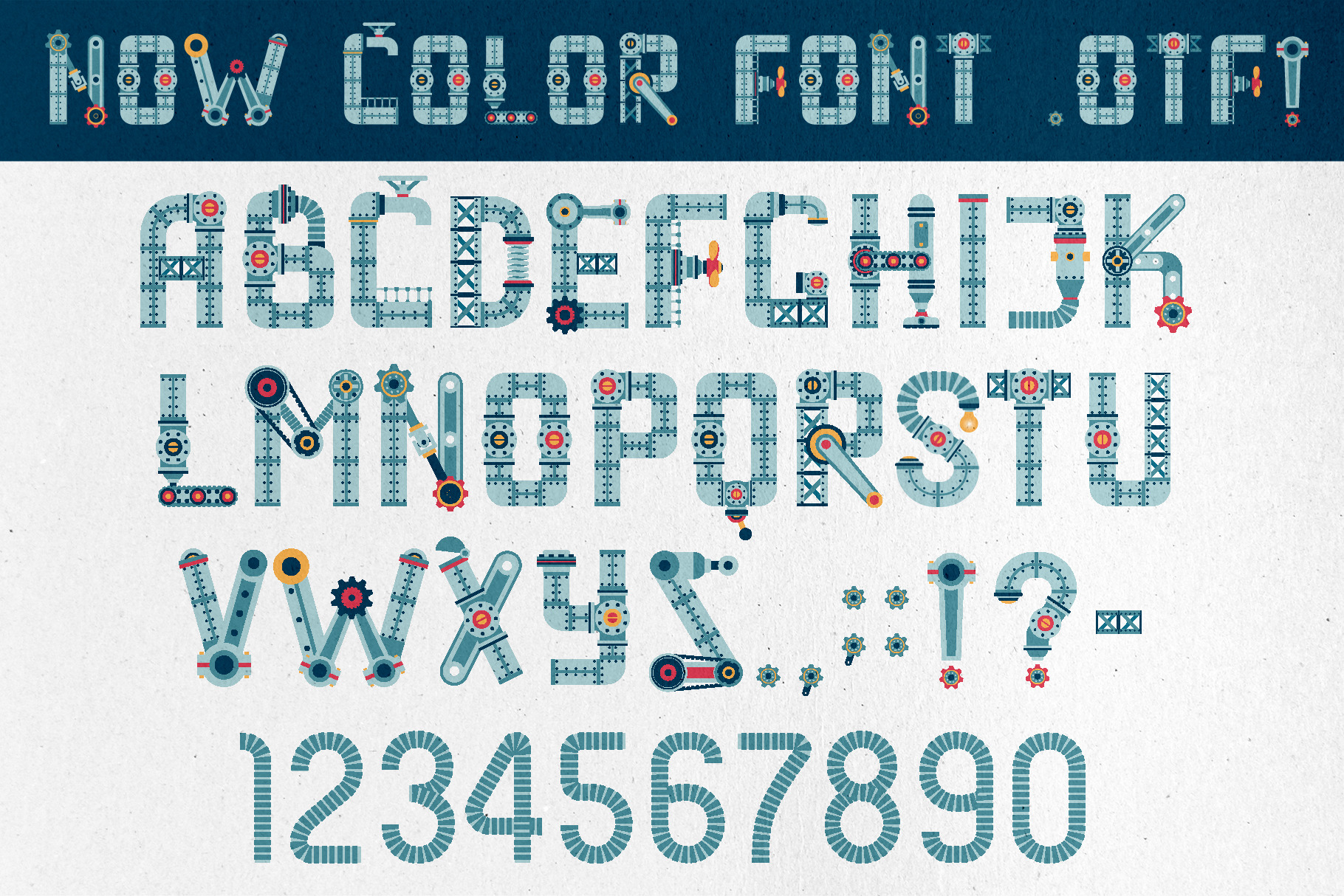
Steampunk font - IndustryMania
Original Steampunk alphabet in color and monochrome versions. Includes vector EPS10 files and raster PSD (8000x10000px) files with transparent background.